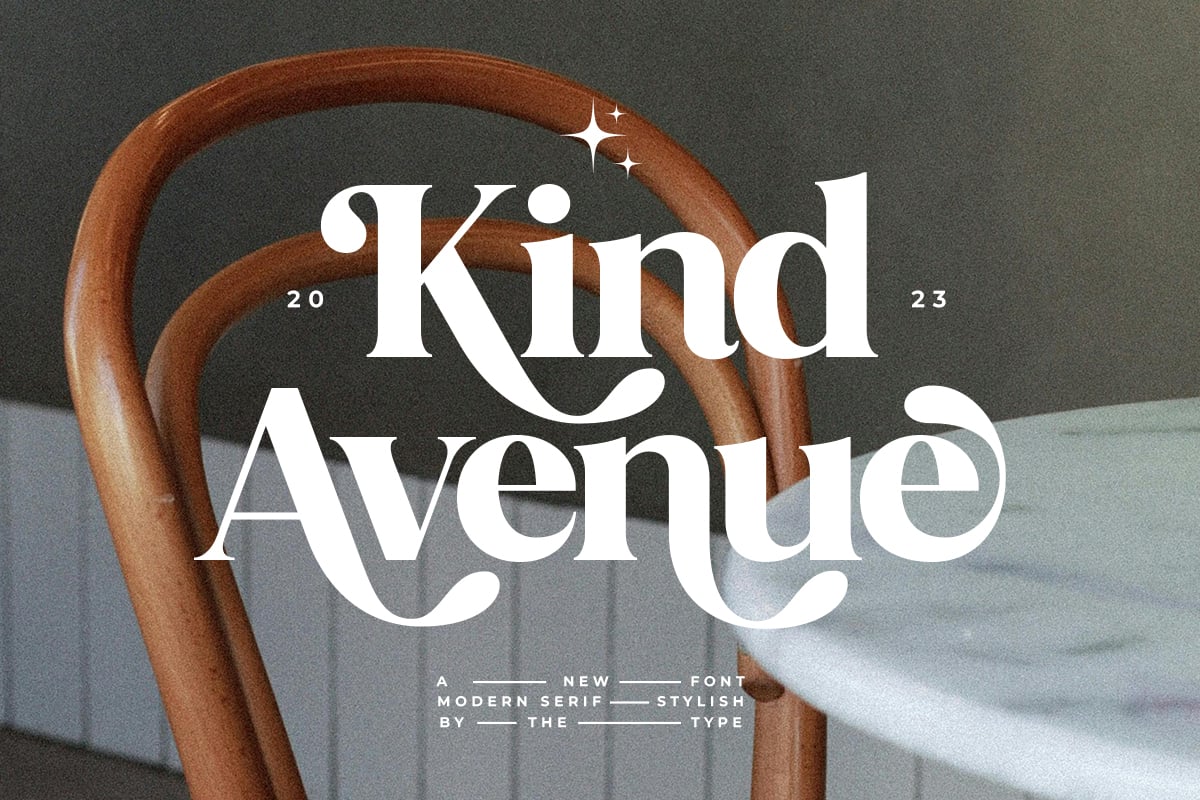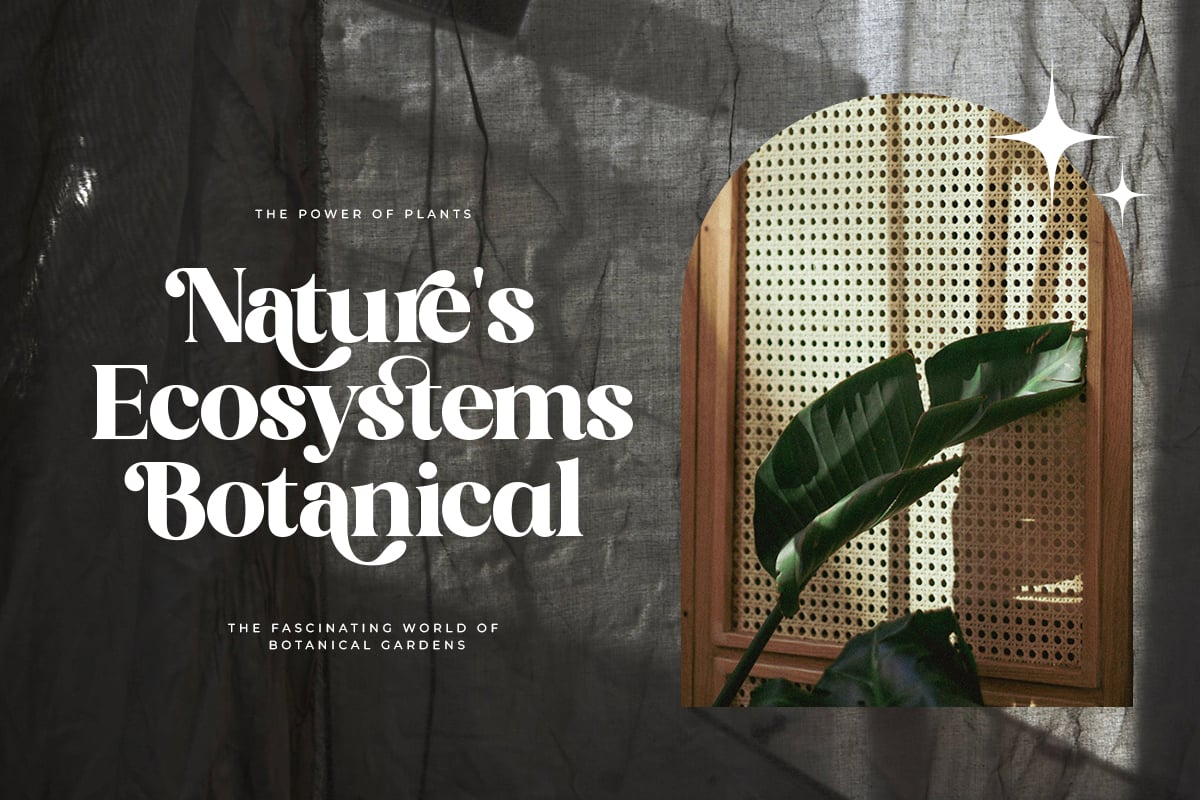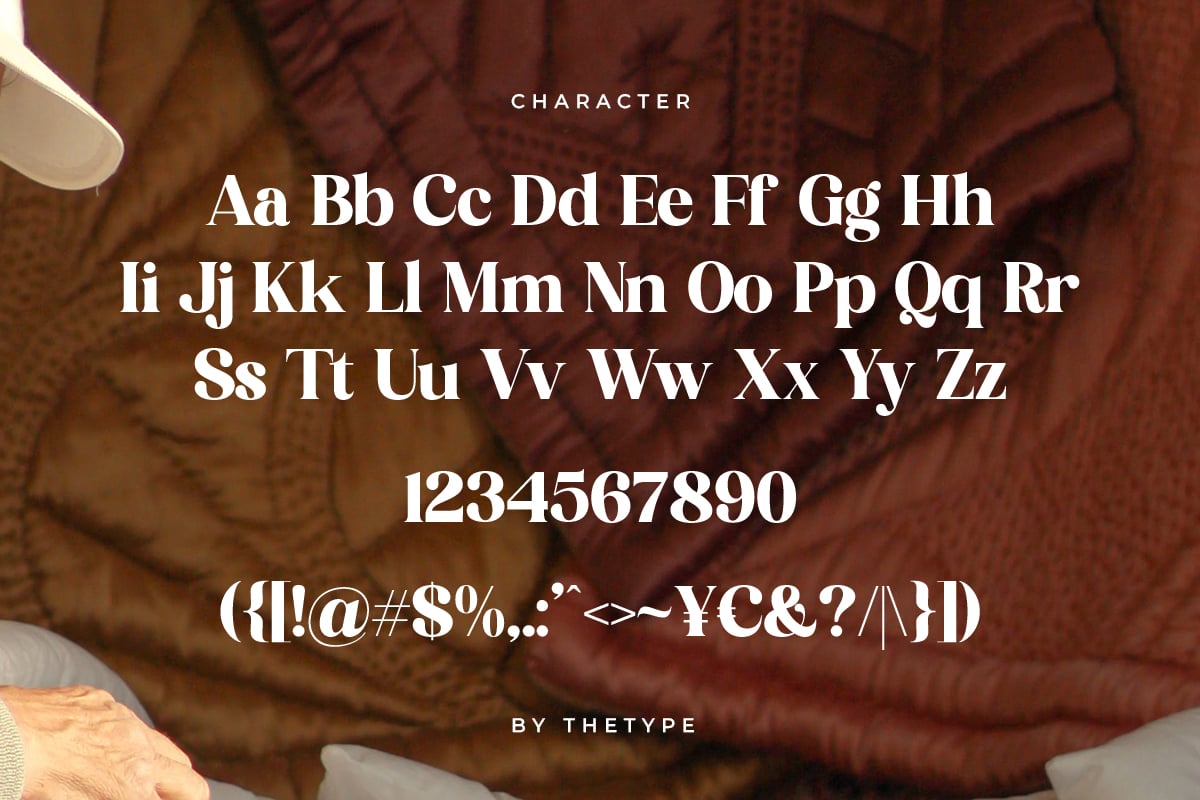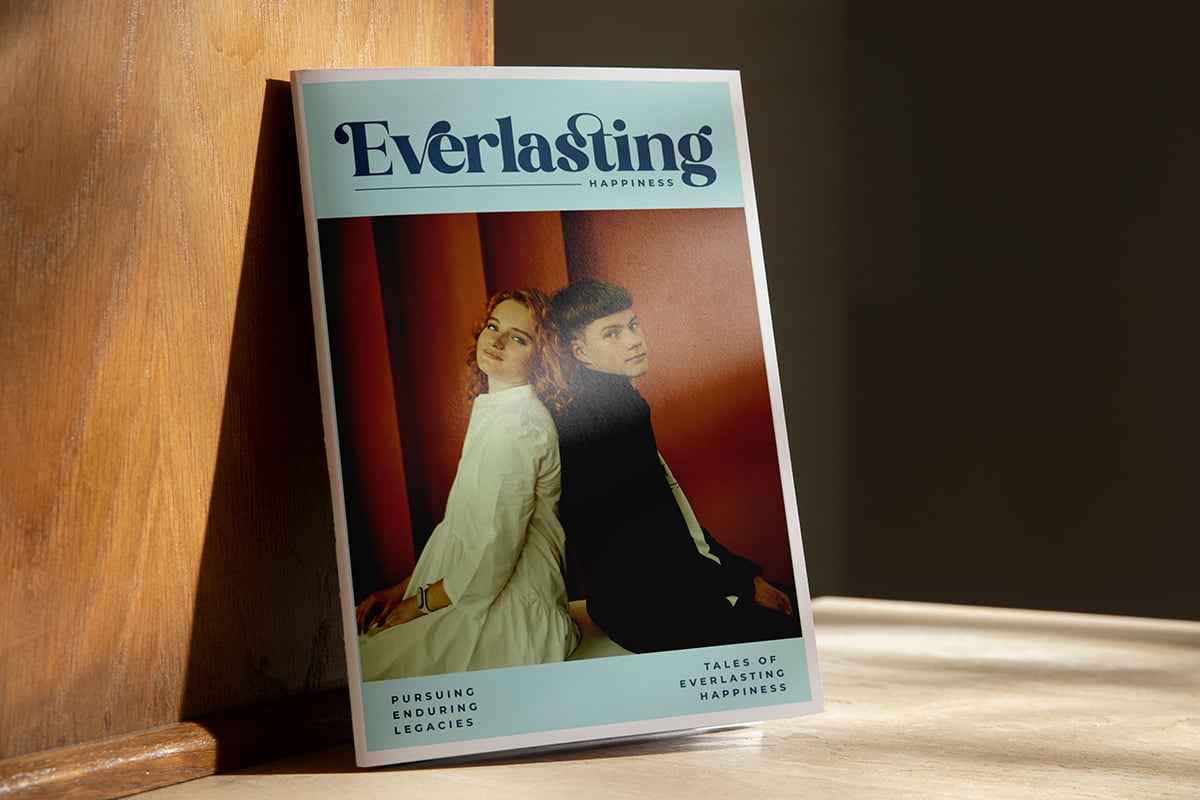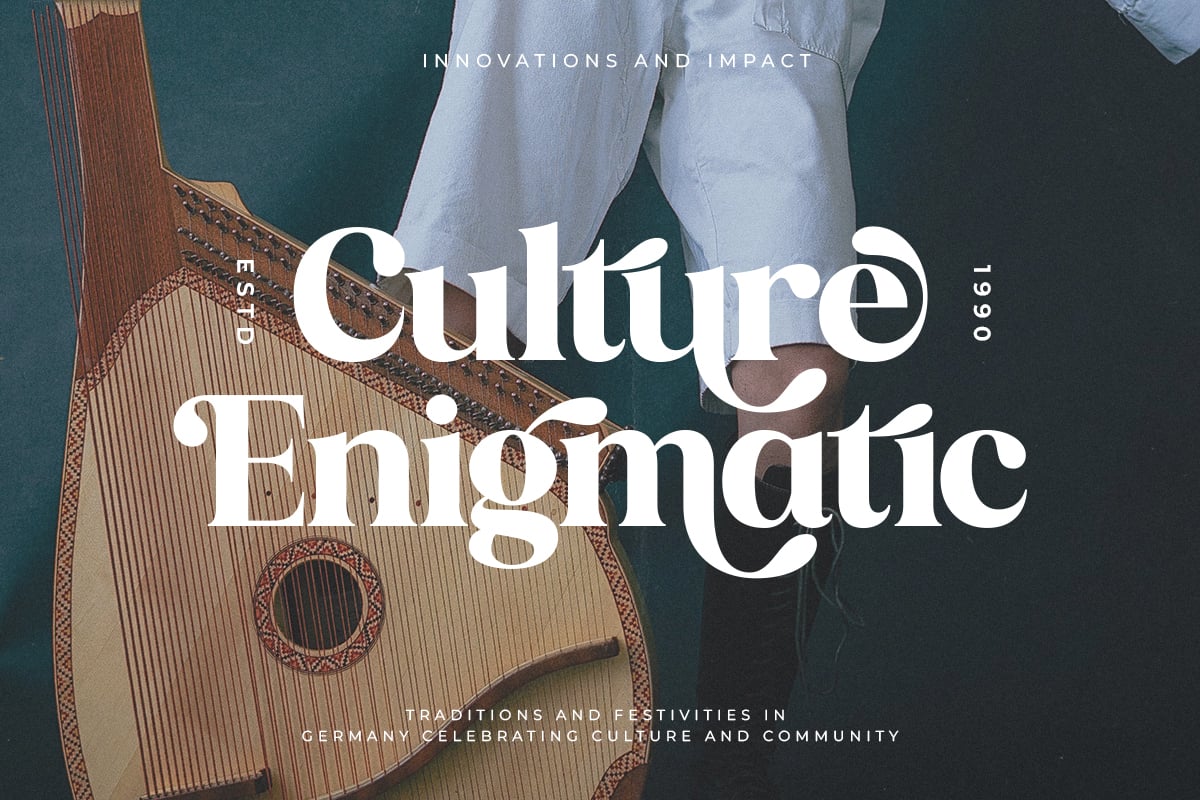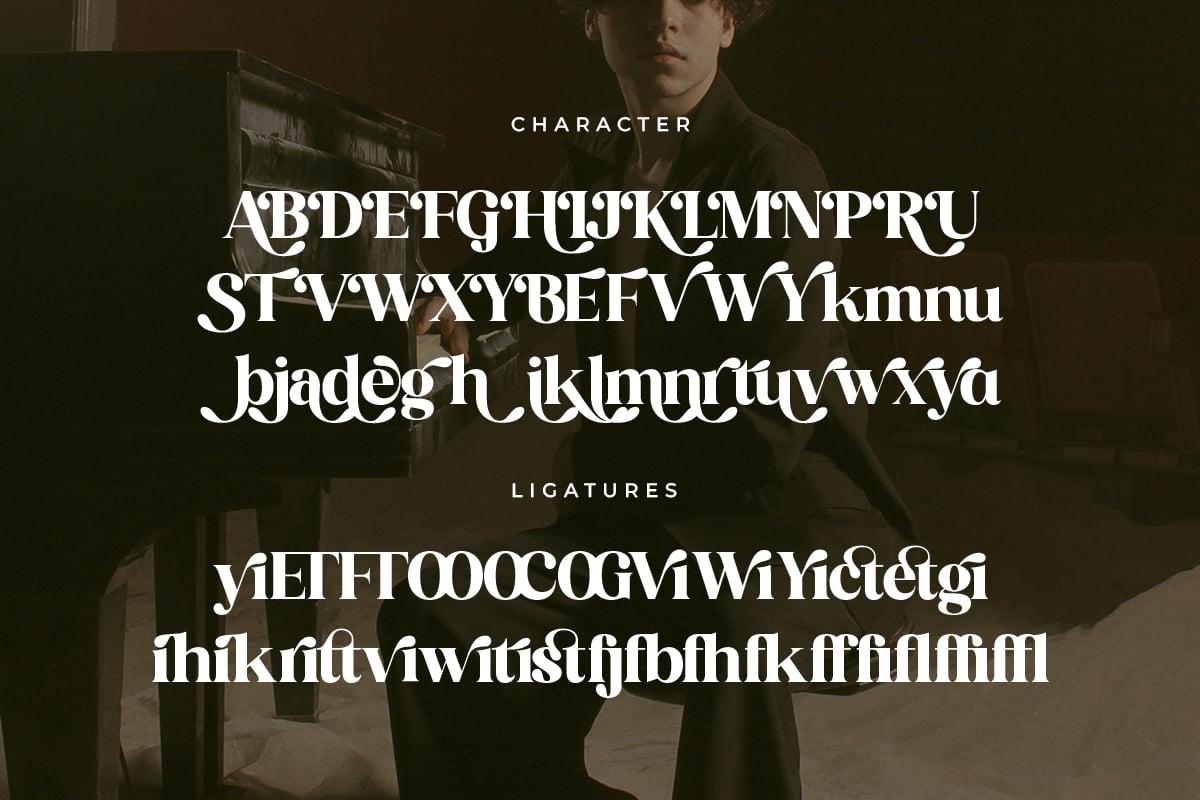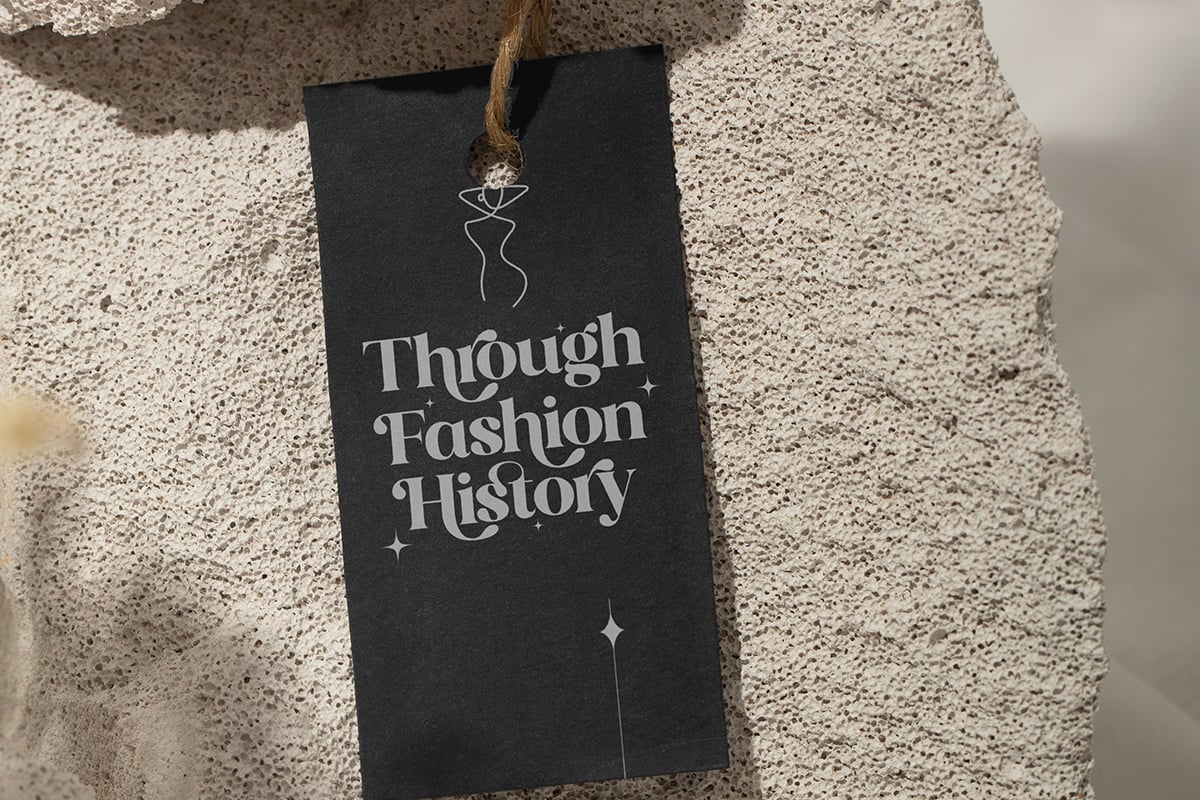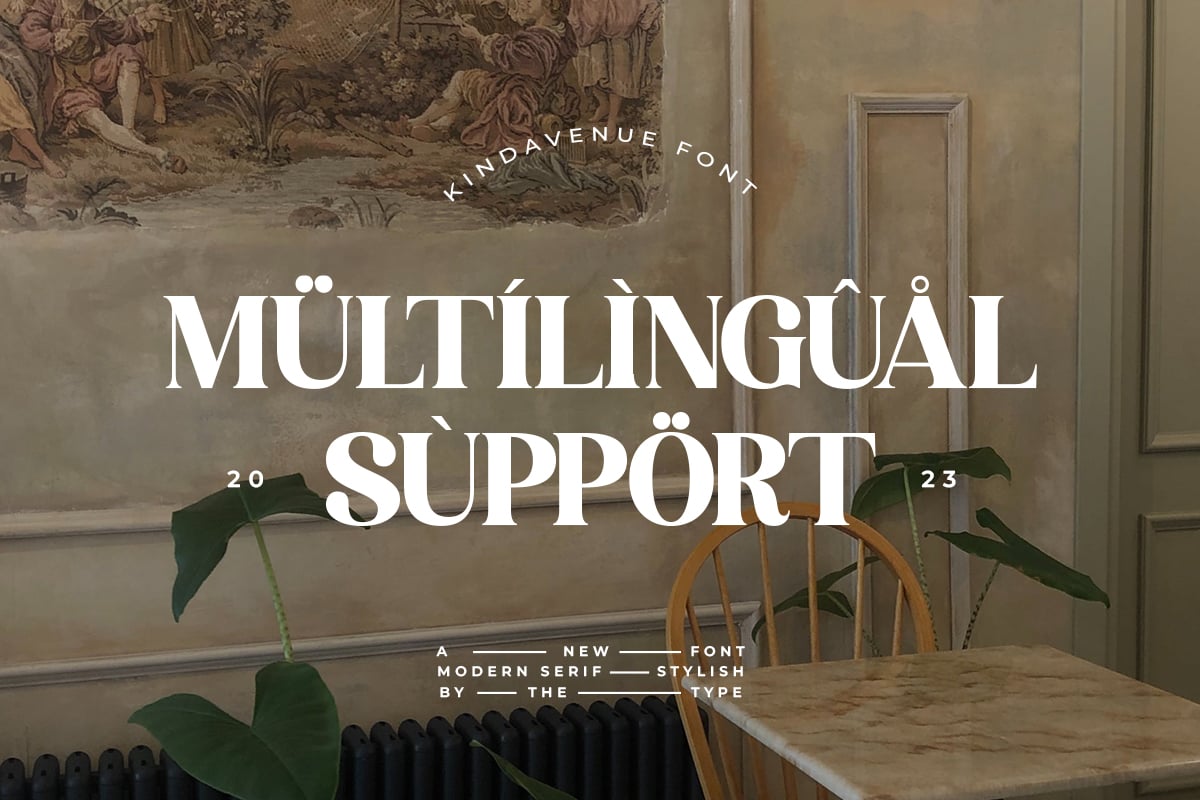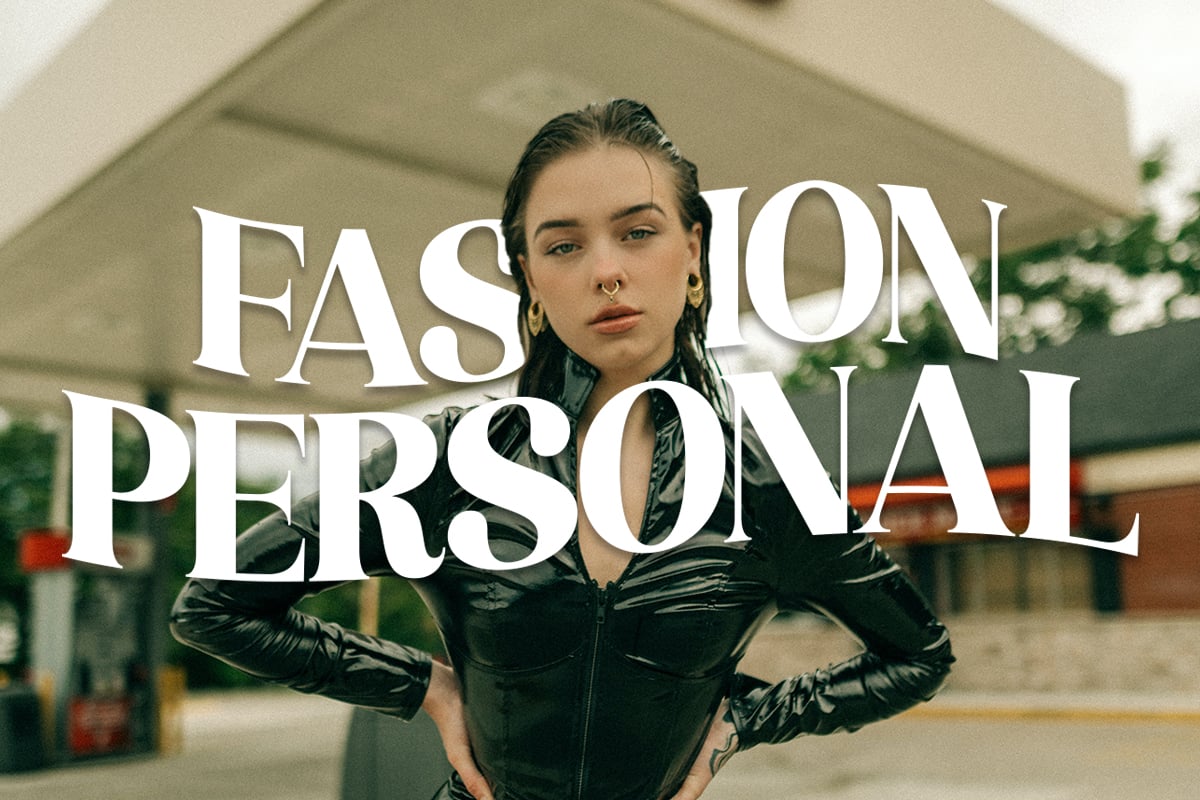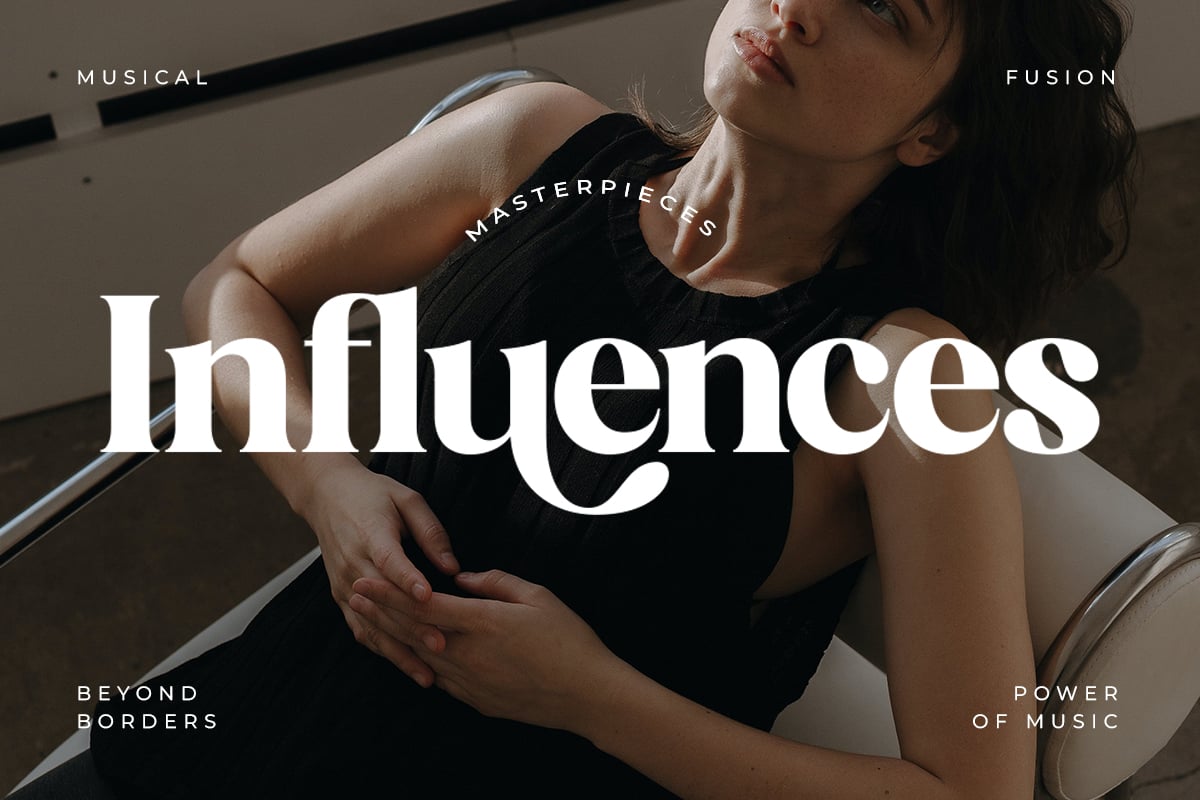
Kind Avenue – Stylish Retro Font
Kind Avenue – A Stylish Retro Font. This font can look more retro (conservative) serif, which is perfect for texts.
So same he can be more expressive, playing and more modern with alternative substitutes and ligatures.
Try to play with them and you will get the uniqueness in your project
Kind Avenue Features:
- Alternates & Ligatures
- Accented characters